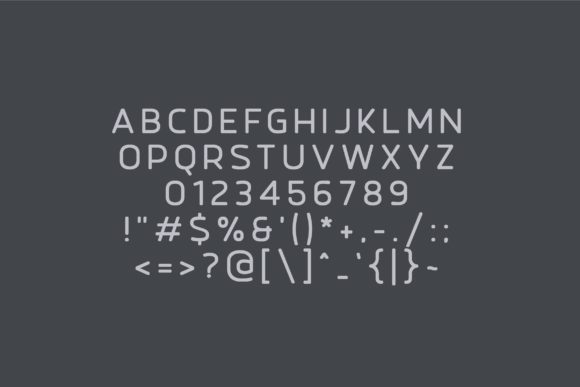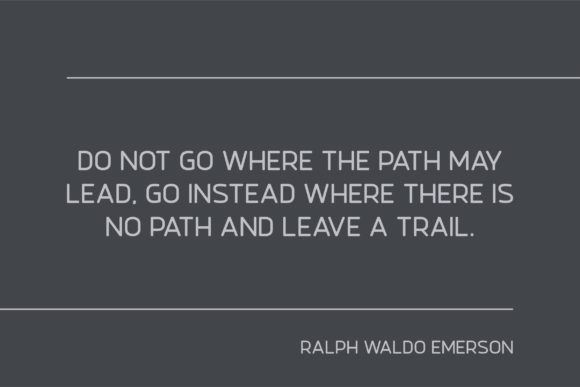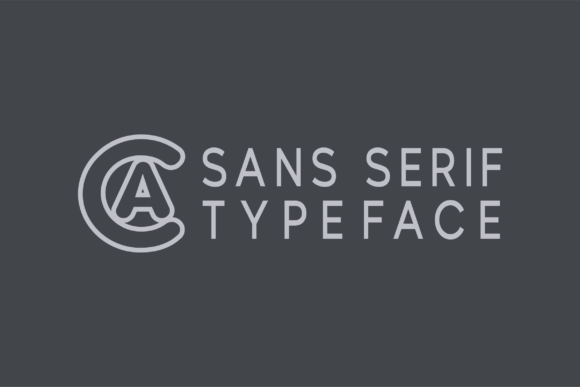
Introduction to Scrafter Font
As designers, we’ve all been there – staring at a blank canvas, trying to bring our creative vision to life. The perfect font can make all the difference, setting the tone for a stunning visual identity that elevates our work to new heights. That’s exactly what Scrafter Font offers – a sophisticated and elegant sans serif typeface that exudes timeless appeal.
Whether you’re working on a high-end corporate project or a free download design resource for a creative project, Scrafter Font is the perfect addition to your toolkit. Its versatility and range of applications make it a valuable asset for designers looking to add a touch of style and sophistication to their work.
With Scrafter Font, you’ll have access to a wide range of characters, including uppercase letters, numbers, punctuation marks, and symbols, all perfectly suited for a transparent background or high-quality print media.
Key Features of Scrafter Font
- Features a transparent background, making it easy to combine with other design elements and achieve a clean, minimalist look.
- Designed as a versatile design resource, Scrafter Font is perfect for crafting unique headlines, titles, and body text for various creative projects.
- Supports multiple languages, making it a great choice for international design projects and publications.
Honest Review: Scrafter Font
As a designer, I’m always on the lookout for high-quality design resources to elevate my creative projects. Recently, I came across the Scrafter Font, and I was excited to give it a try.
Here’s what I liked about it:
- ✨ Unique and creative design: The Scrafter Font has a distinctive, handcrafted feel that adds a touch of personality to any design.
- ⚠️ Limited font styles: The Scrafter Font only comes in a few styles, which may not be sufficient for designers who require a more extensive font library.
- ⚠️ Not suitable for large-scale projects: While the font is great for small-scale designs, it may not be the best choice for larger projects that require more versatility.
Overall, I think the Scrafter Font is a solid addition to any designer’s toolkit, particularly for small-scale creative projects. Its unique design and free download make it a valuable resource, but its limitations should be taken into consideration.
Common Use Cases for Scrafter Font
Scrafter Font is a great design resource for a variety of creative projects, including: Social media graphics, blog posts, presentations, and documents. The font is perfect for creating eye-catching titles, headings, and text overlays that will engage your audience.